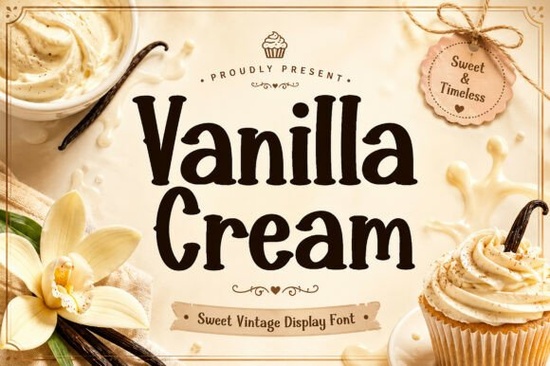
If you're looking for a warm, inviting display font that feels handmade and nostalgic like something you’d see on a vintage bakery sign or a hand-stamped greeting card Vanilla Cream Font fits naturally into that space. It’s not overly ornate or stiff; instead, it balances soft curves, gentle serifs, and subtle irregularities that give it quiet character without sacrificing readability. Designers and small business owners often tell us they choose it when they want typography that feels personal, approachable, and quietly confident not flashy, but memorable.
Who uses Vanilla Cream Font and why?
Crafters making printable wall art or wedding invitations love how Vanilla Cream Font adds charm without competing with delicate illustrations or watercolor backgrounds. Print-on-demand sellers use it for cozy-themed mugs, tote bags, and tea towels especially when the design leans into cottagecore, rustic kitchen, or slow-living aesthetics. Small businesses selling handmade soaps, candles, or baked goods find it works well on product labels and social media posts because it conveys care and authenticity.
It’s also popular among designers building brand identities for local cafes, bakeries, or gift shops where warmth matters more than trendiness. Unlike some retro fonts that feel dated or gimmicky, Vanilla Cream holds up across formats from Instagram story text to laser-cut wood signs because its proportions and spacing were carefully tuned for real-world use.
How does it compare to other friendly display fonts?
If you’ve used Dusty Classic Font, you’ll notice Vanilla Cream has softer edges and less contrast between thick and thin strokes making it feel lighter and more intimate. Compared to Best Friend Font, it’s less bubbly and more grounded, with a stronger vintage rhythm. It shares some playfulness with Cartoon Doodle Font, but avoids cartoonish exaggeration, keeping things tasteful for adult audiences.
Where Twinkle Candy Font leans into whimsy and sparkle, Vanilla Cream opts for subtlety think vanilla bean specks rather than sprinkles. And unlike Groovy Style Font, which channels 70s energy and movement, Vanilla Cream is calmer, more deliberate like a handwritten note left on a flour-dusted counter.
It supports basic Latin characters (A–Z, numbers, common punctuation), so it’s ideal for English-language projects like shop names, recipe cards, or event signage. If your project needs extended language support (e.g., accented characters for French or Spanish), double-check the preview before purchasing it’s designed primarily for clean, short-form use rather than long paragraphs.
Where does it work best and where might it fall short?
Vanilla Cream shines in medium-to-large sizes: logos, headlines, packaging front panels, and framed prints. It’s not meant for body text or tiny captions its charm lives in presence, not density. You’ll get the most out of it when paired with simple sans-serifs (like Montserrat or Poppins) or neutral serif companions (like Merriweather or Lora) for contrast and balance.
Avoid using it for high-contrast digital ads where legibility at small sizes matters most or for formal corporate reports where tone and neutrality take priority. It’s also not a “one-size-fits-all” solution for every vintage project; if your brand leans mid-century modern or Art Deco, you might prefer something sharper or more geometric.
Real examples from Creative Fabrica users
One Etsy seller used Vanilla Cream Font for her line of herbal tea blends pairing it with linen-textured backgrounds and hand-drawn botanicals. Another made a series of printable “Bake Sale” posters for school fundraisers, swapping in alternate characters for each headline to keep things fresh. A third printed it directly onto kraft paper tags for handmade soap bars, letting the font’s softness echo the product’s gentle ingredients.